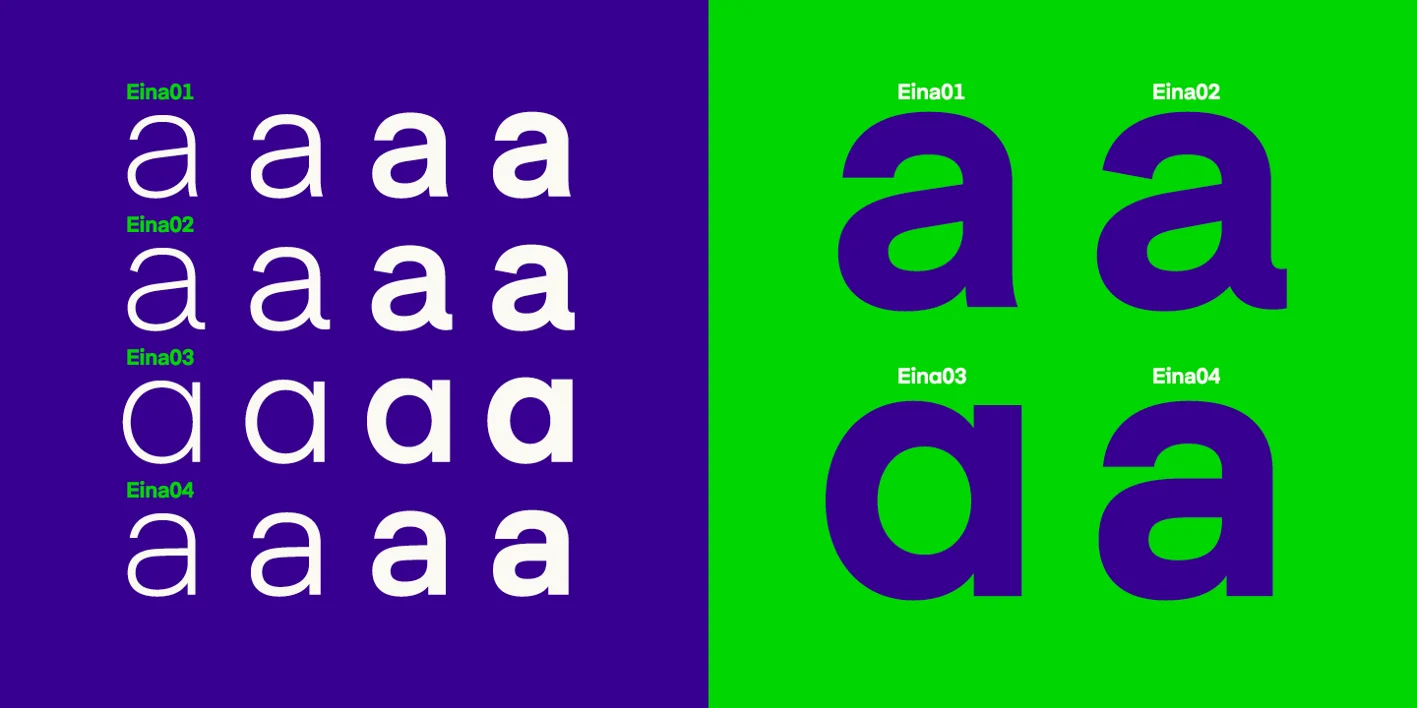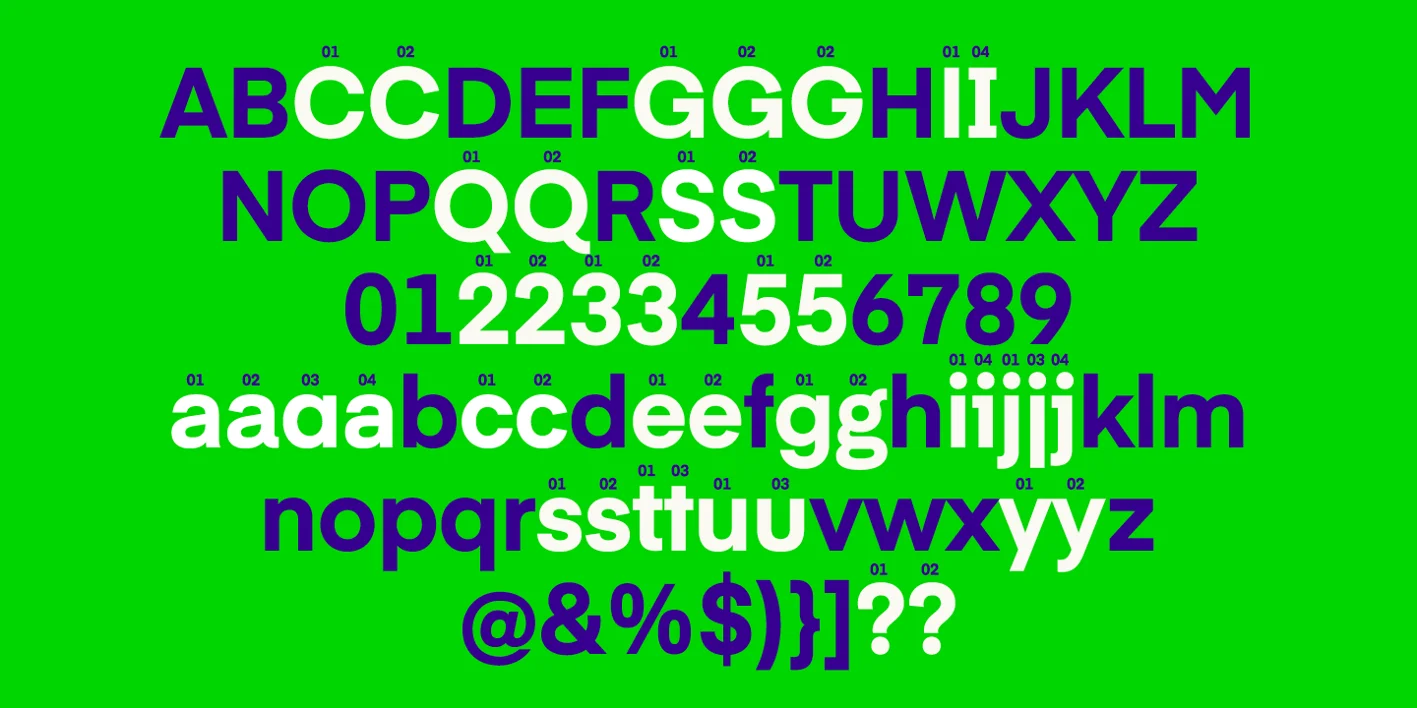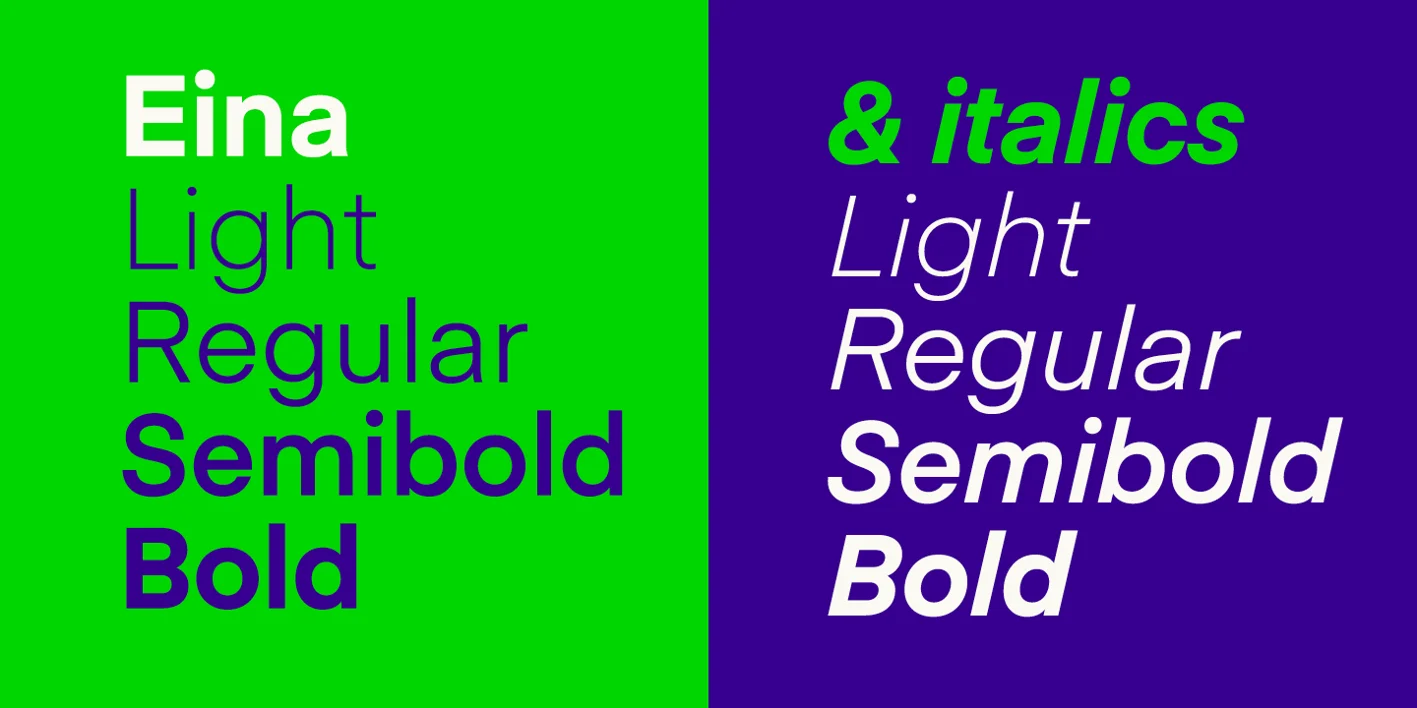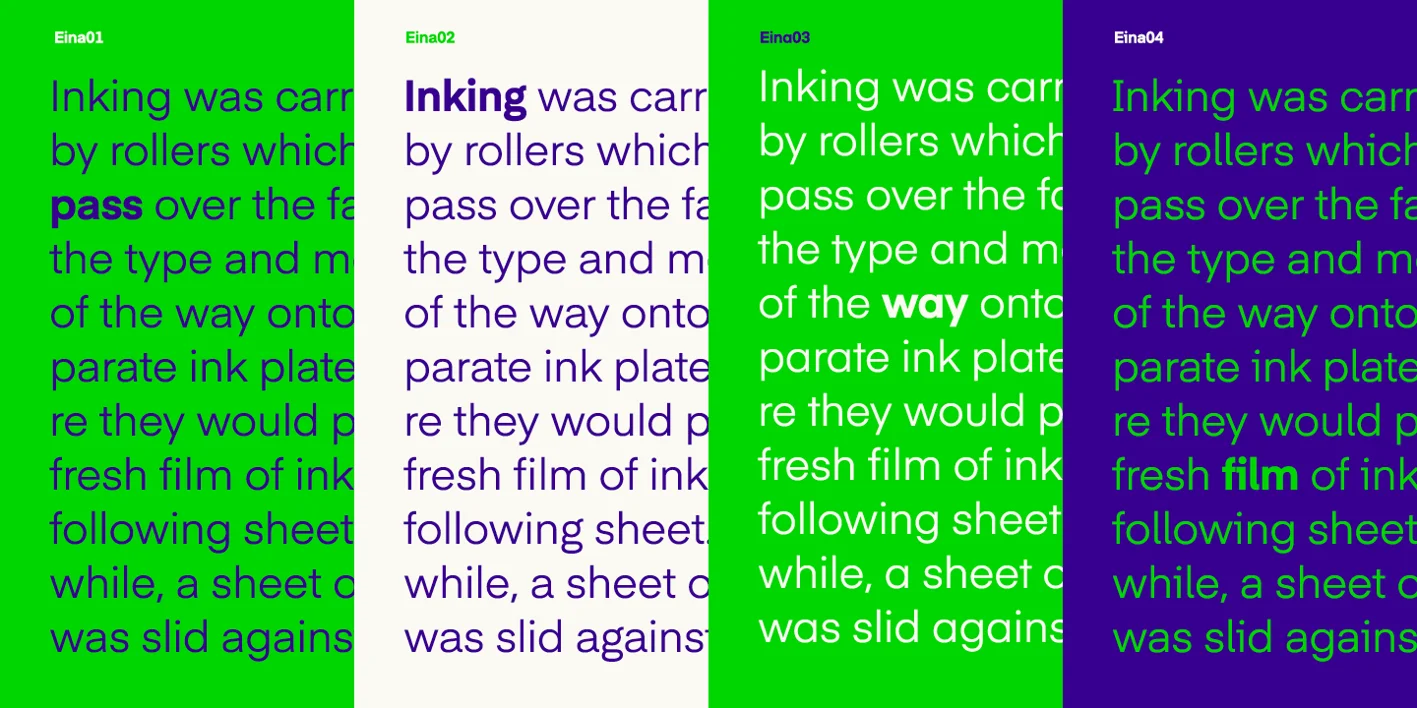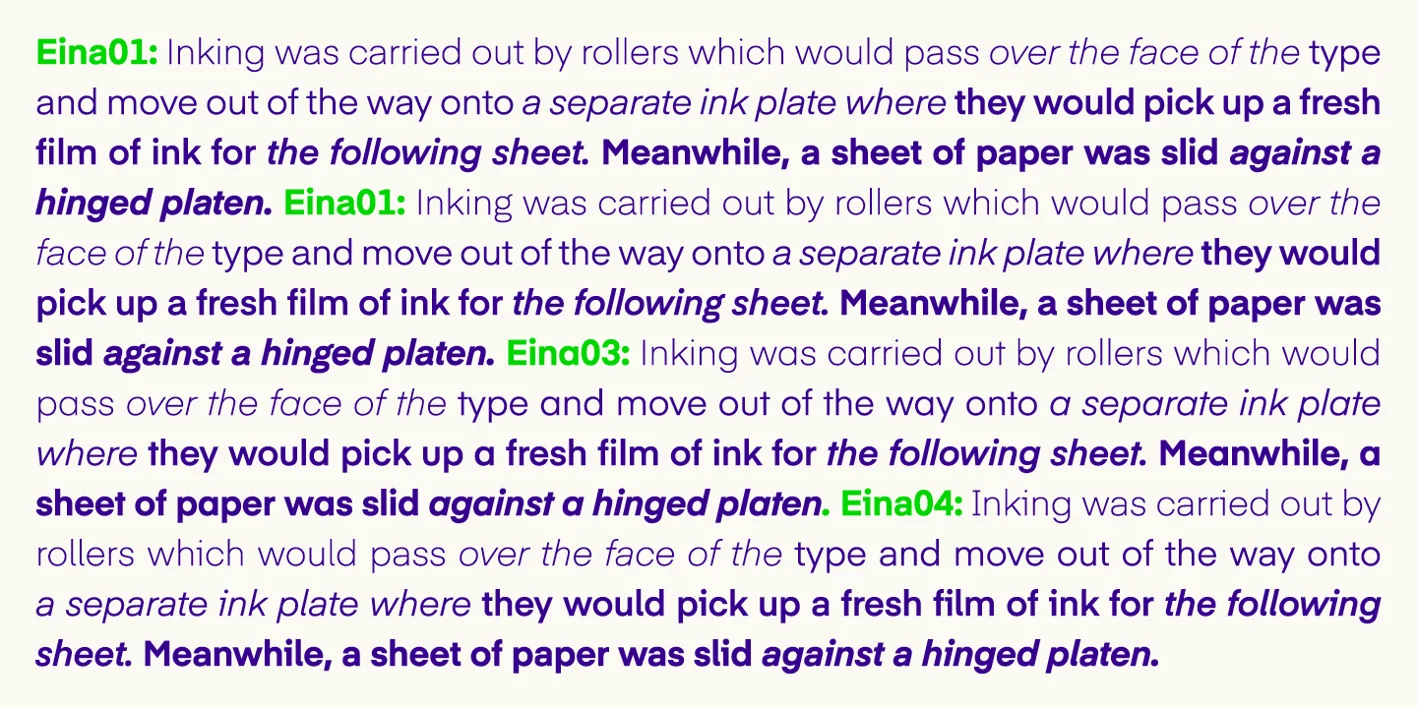
Eina Font
When a design brief calls for both consistent type colour across continuous text and immediate visual impact, type choices matter. Eina answers that brief. The typeface brings a versatile sensibility to a broad range of creative disciplines, with versatility across print and screen contexts that holds up whether the work is print-first or screen-first.
In practice, Eina proves particularly effective for advertising campaigns, poster creation, web design, editorial layouts, brand identity systems. Designers reaching for it report that the type decisions feel resolved rather than laboured — a useful quality when client timelines are tight and creative bandwidth is limited.
The range of applications extends to social media graphics, packaging design, product labels, logo design. That breadth is not accidental: the proportions and spacing were tested across a range of mock briefs before the typeface was finalised, ensuring the design holds together in contexts beyond the obvious ones.
Freelance designers across print and digital disciplines find Eina a reliable workhorse for projects where the brief demands both personality and restraint. The typeface avoids the self-conscious quirkiness that dates quickly, settling instead for the kind of considered distinctiveness that remains effective over a longer creative lifespan.